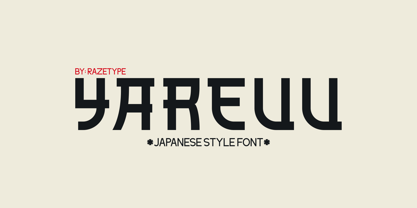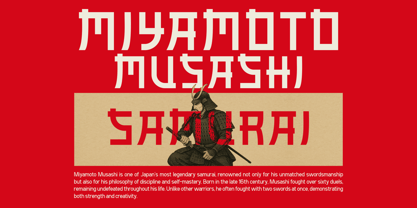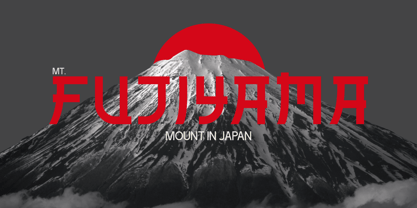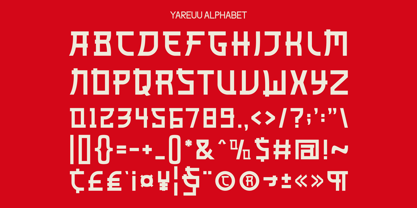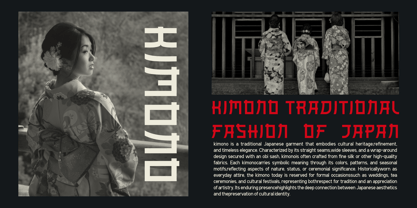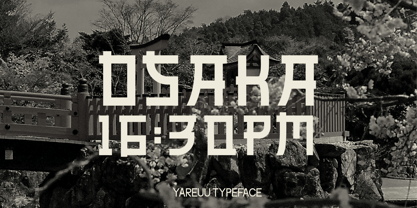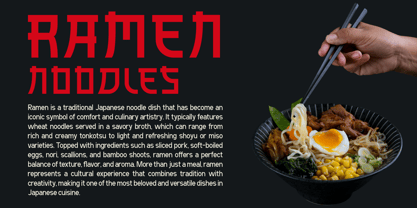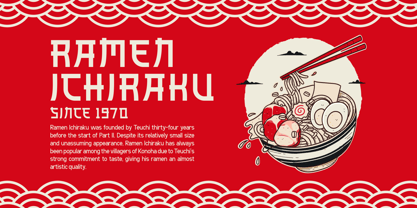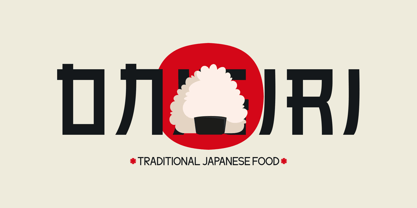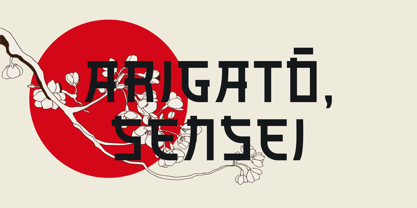
Yareuu
by Razetype
The Yareuu Font Family was designed by Ahmad Faizal and published by Razetype. Yareuu contains 1 styles. More about this family
Introducing YAREUU is a striking Japanese-inspired display typeface that merges cultural tradition with contemporary design. Its bold, block-like structure reflects the discipline and strength often associated with Japanese heritage, while the subtle curves and sharp angles give it a modern, geometric elegance. Each letterform is crafted to evoke the essence of Japanese calligraphy and architectural motifs, making it both artistic and impactful. Perfect for logos, posters, menus, product packaging, and cultural projects, this typeface instantly communicates a strong identity and visual presence. Its versatility allows it to adapt seamlessly to various design contexts, from branding a ramen shop to illustrating samurai legends or presenting traditional Japanese fashion. With a complete set of characters, numerals, and symbols, it offers both functionality and expressive style.